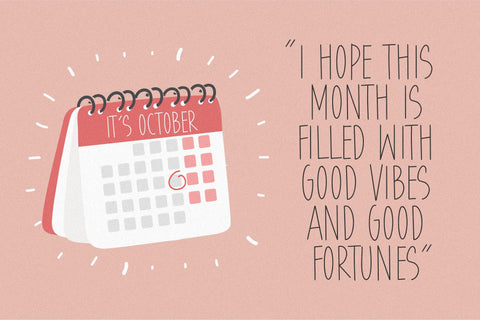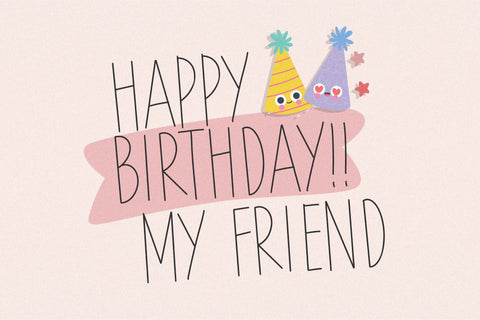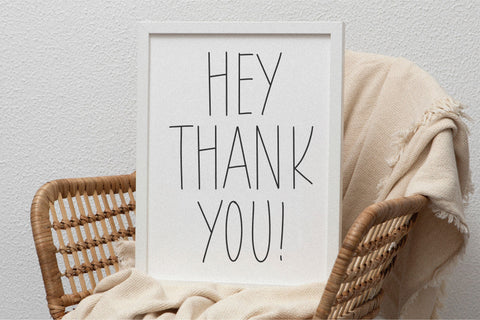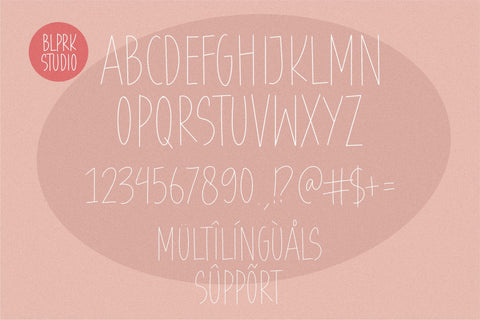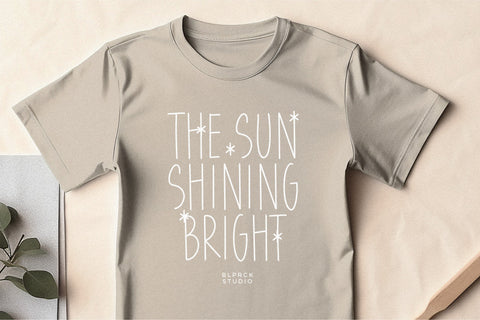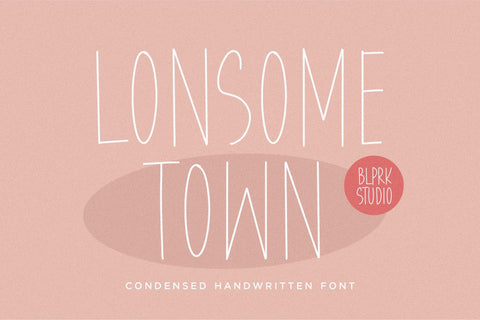
Lonesome Town Font
Lonesome Town is a Condensed Handwritten Font.
This font is very suitable for writing quotes and notes. Apart from that, it can be used for logos, book covers, magazines, t-shirts, and others.
This font only has uppercase letters